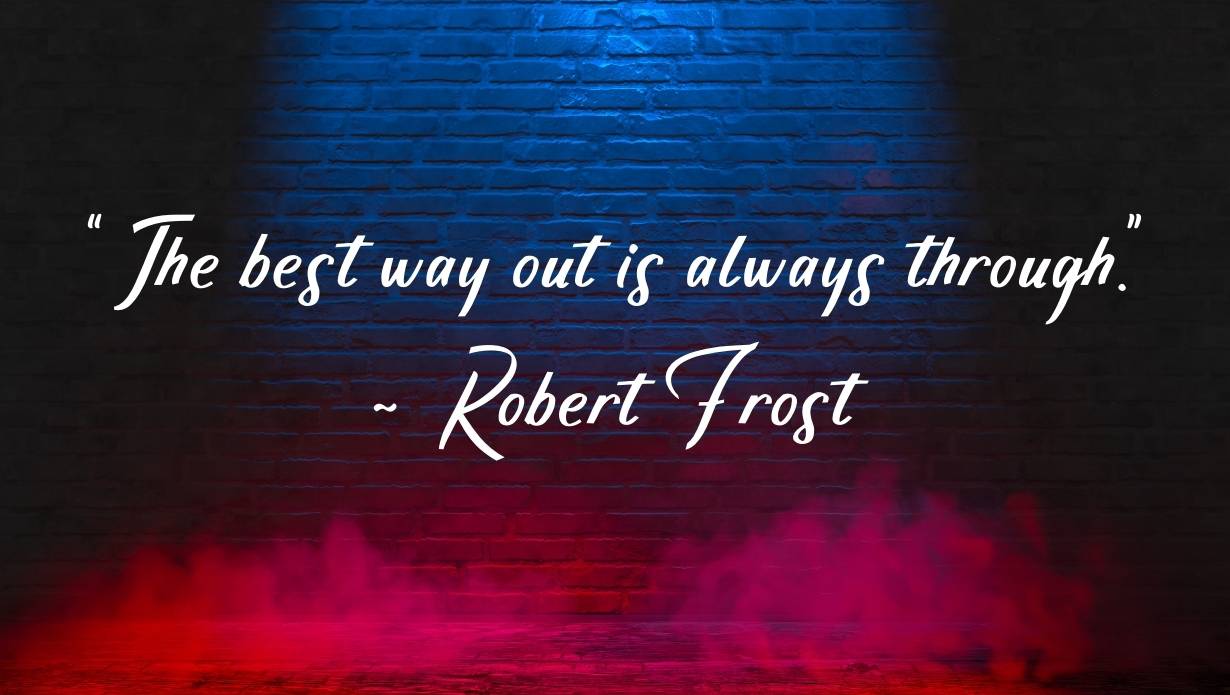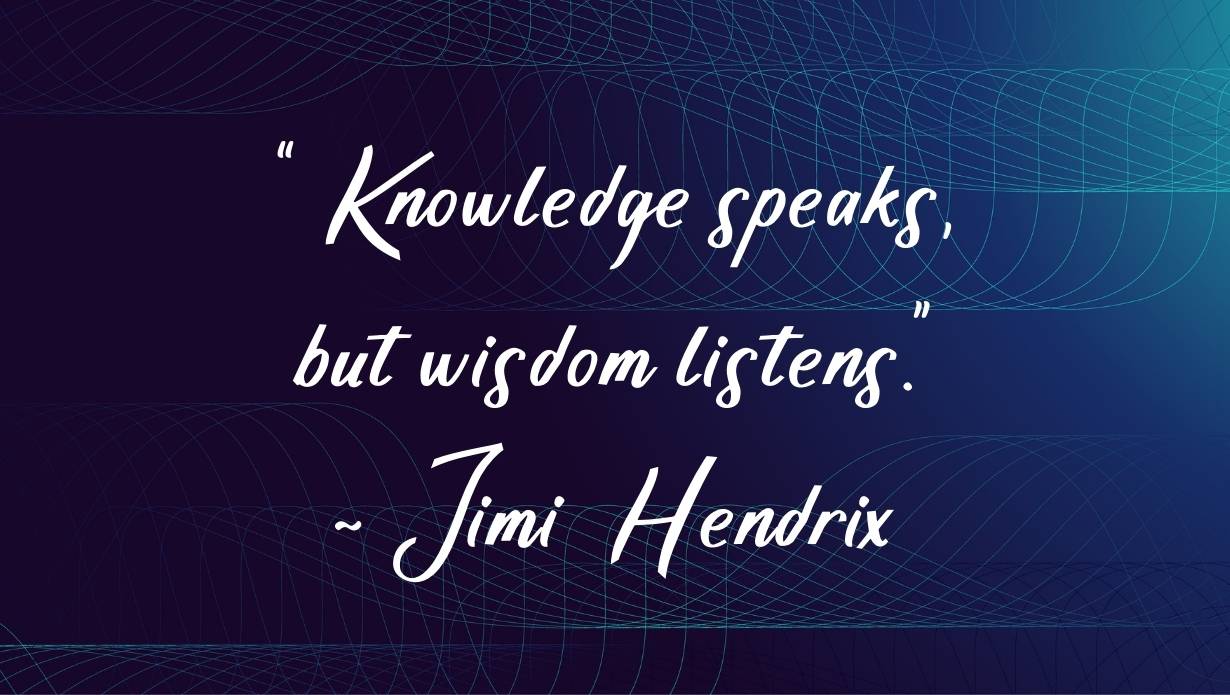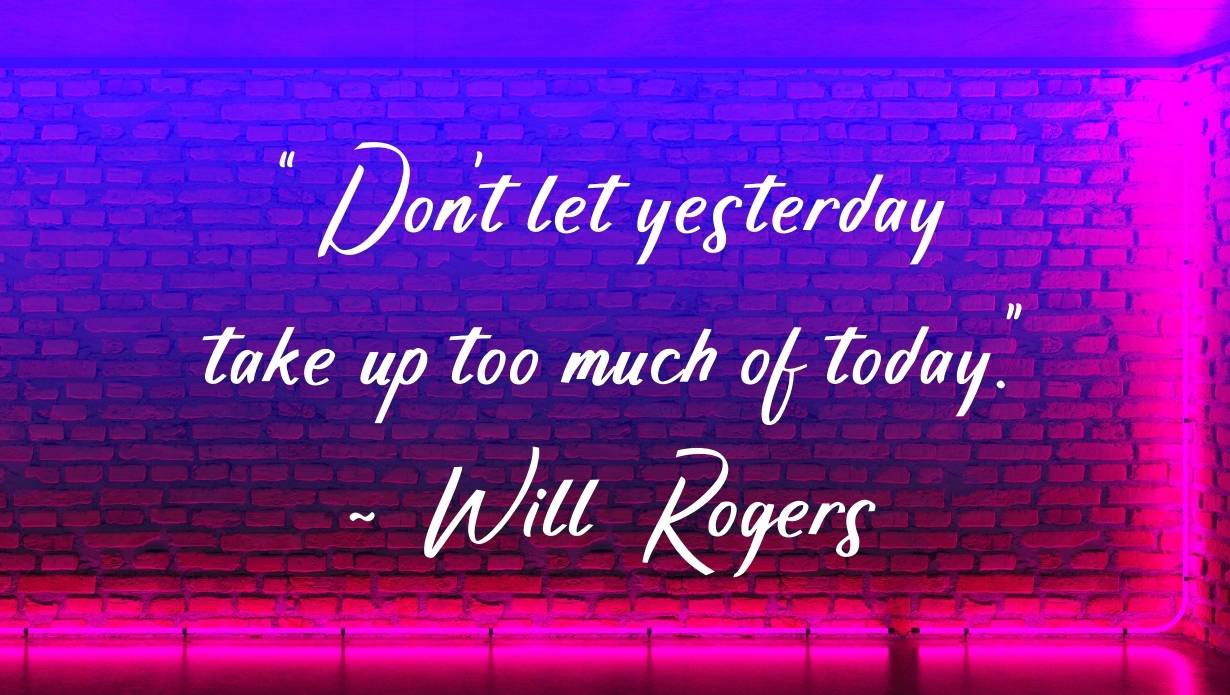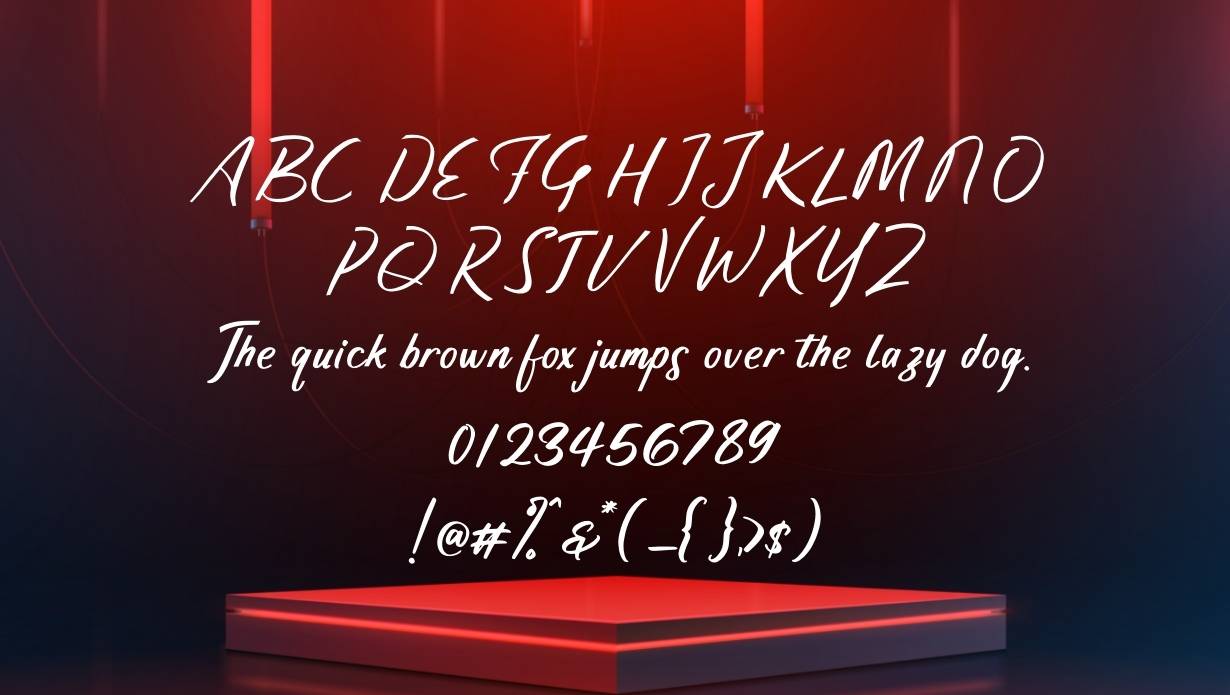
Edward Script Font
Representing you with a cool, astonishing, and smooth line typeface that is reputed as Edward Script Font, it has been designed by Dafontfamily and provided as free for personal works only.
The Edward Script Font has many features and implementations and works in all kinds of designs and documental works. The texture quality is so high with smooth round lines that belong to the Script family.
While the Edward Script font has an OTF feature with Uppercase and lower-case letters, Numbers, some mandatory symbols, etc. Some of the letters are joined while some of them are separated, and one special thing about the font style is that you can rescale and resize the font without losing its original quality.
You can utilize the Edward Script Font in your logos, banners, posters, brochures, and pamphlets, and works well in writing projects like summaries, novels, social media posts, and much more.